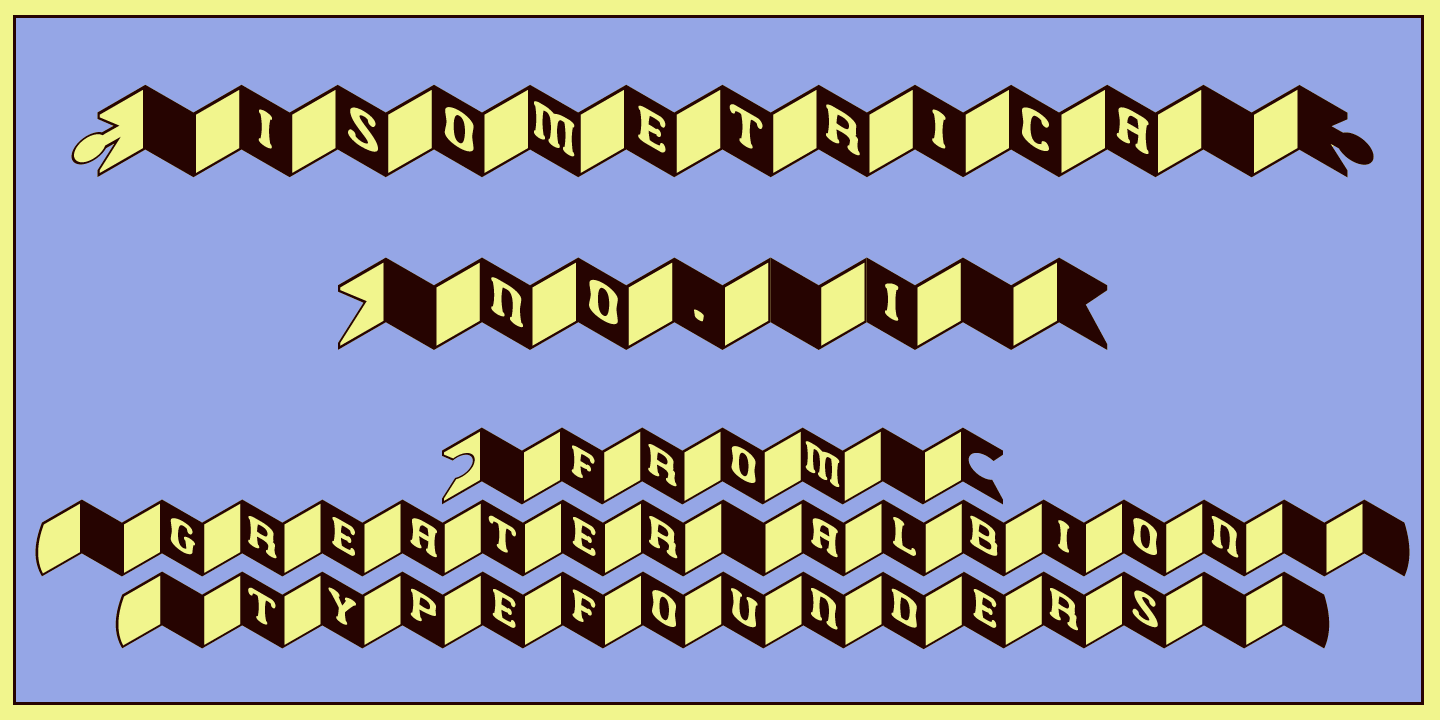
If you want a font that captures depth and dimension with a modern edge, Isometrica Font Free Download is your go-to. This isometric-inspired typeface adds a cool 3D effect to your designs, making it perfect for tech branding, posters, packaging, and creative digital projects that need a futuristic vibe.
Isometrica Font Free Download combines geometric precision with visual intrigue, helping your text pop out with clarity and style. Whether you’re aiming for a cutting-edge look or a playful yet professional feel, this font delivers both.
Ideal for startups, gaming brands, and creative agencies, Isometrica adds a dimensional twist that makes your projects unforgettable.